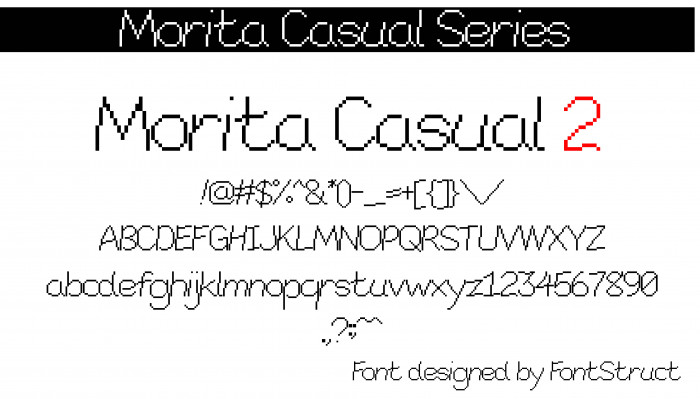
• Morita Casual 2 is the second installment of the now Morita Casual series. The second version of Morita Casual also identifies the handwriting made entirely by Kazuhito Morita, a sibling of Jōkichi Morita. This font pack was later reissued and installed to the public and media by January 25th, 2003.
Good revisal to your Morita Casual font.
That's a good font so far, Kunihisa! I have to admit that your Morita Casual 2 font actually resembles my handwriting!